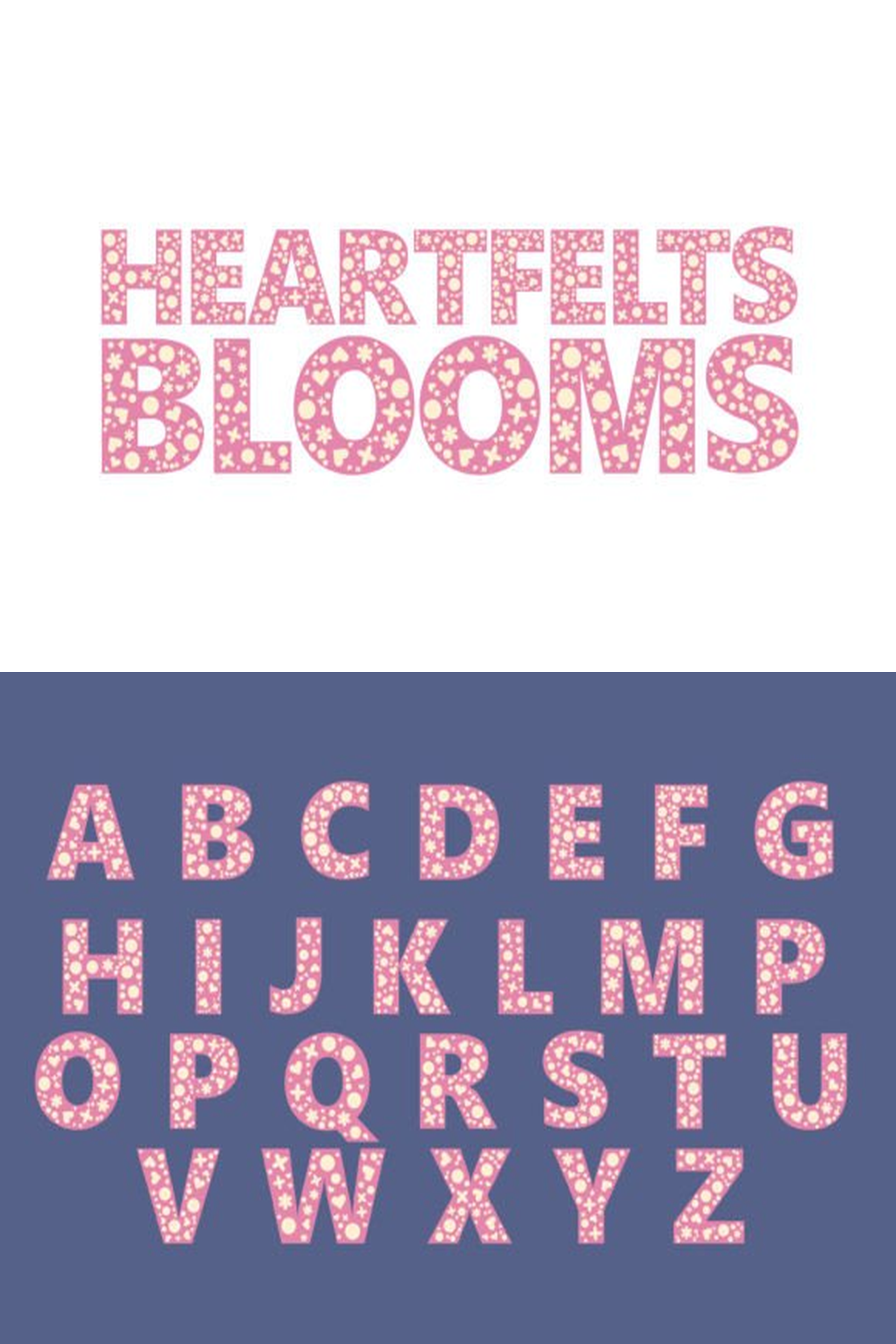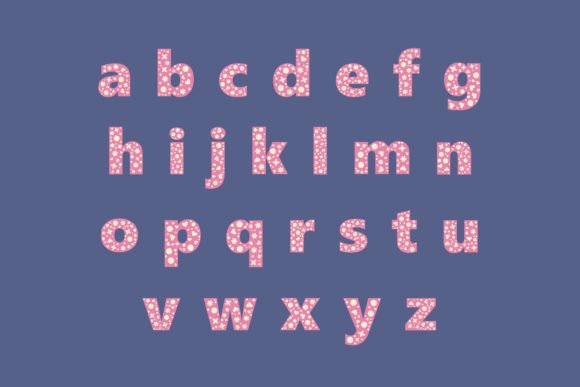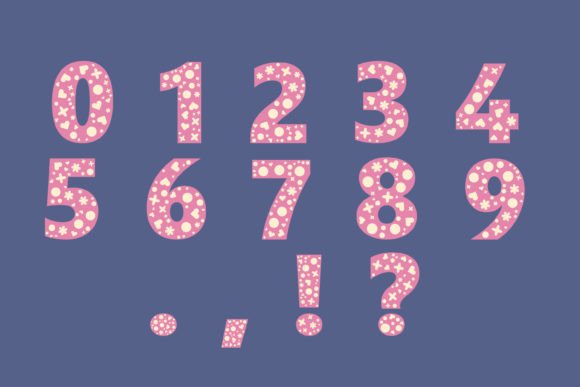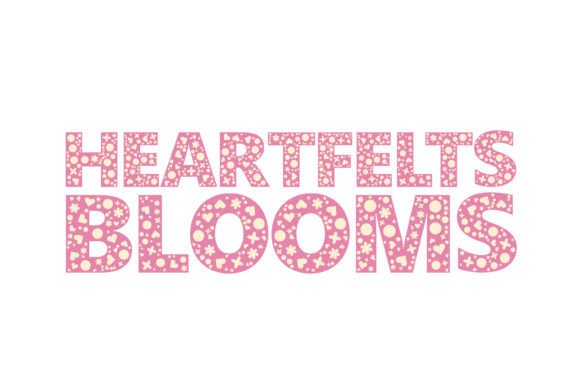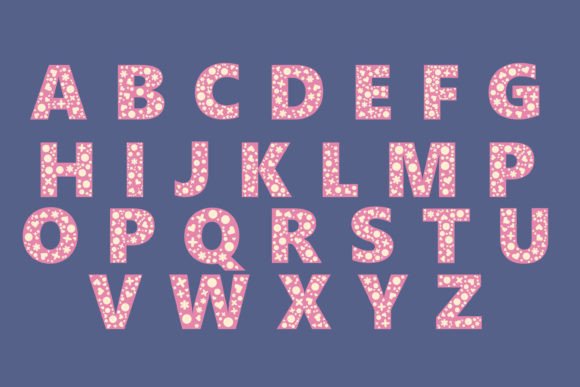
Heartfelt Blooms Font
About the Heartfelt Blooms Font
From logos to headlines, the Heartfelt Blooms Font is the perfect choice for making a lasting impression. Heartfelt Blooms Display Font – Whimsical Typeface with Pink Hearts and Floral Accents
Indulge your designs with the enchanting allure of “Heartfelt Blooms,” a captivating display font filled with pink hearts, delicate flowers, and playful circle shapes. This whimsical typeface is a celebration of love and joy, perfect for adding a touch of romance and charm to your creative projects.
Crafted with precision, each letter is a canvas adorned with blooming flowers, delightful hearts, and dynamic circles, creating a font that’s as visually appealing as it is unique. Whether you’re designing wedding invitations, greeting cards, or simply want to infuse your creations with a dose of whimsy, this font is your artistic companion.